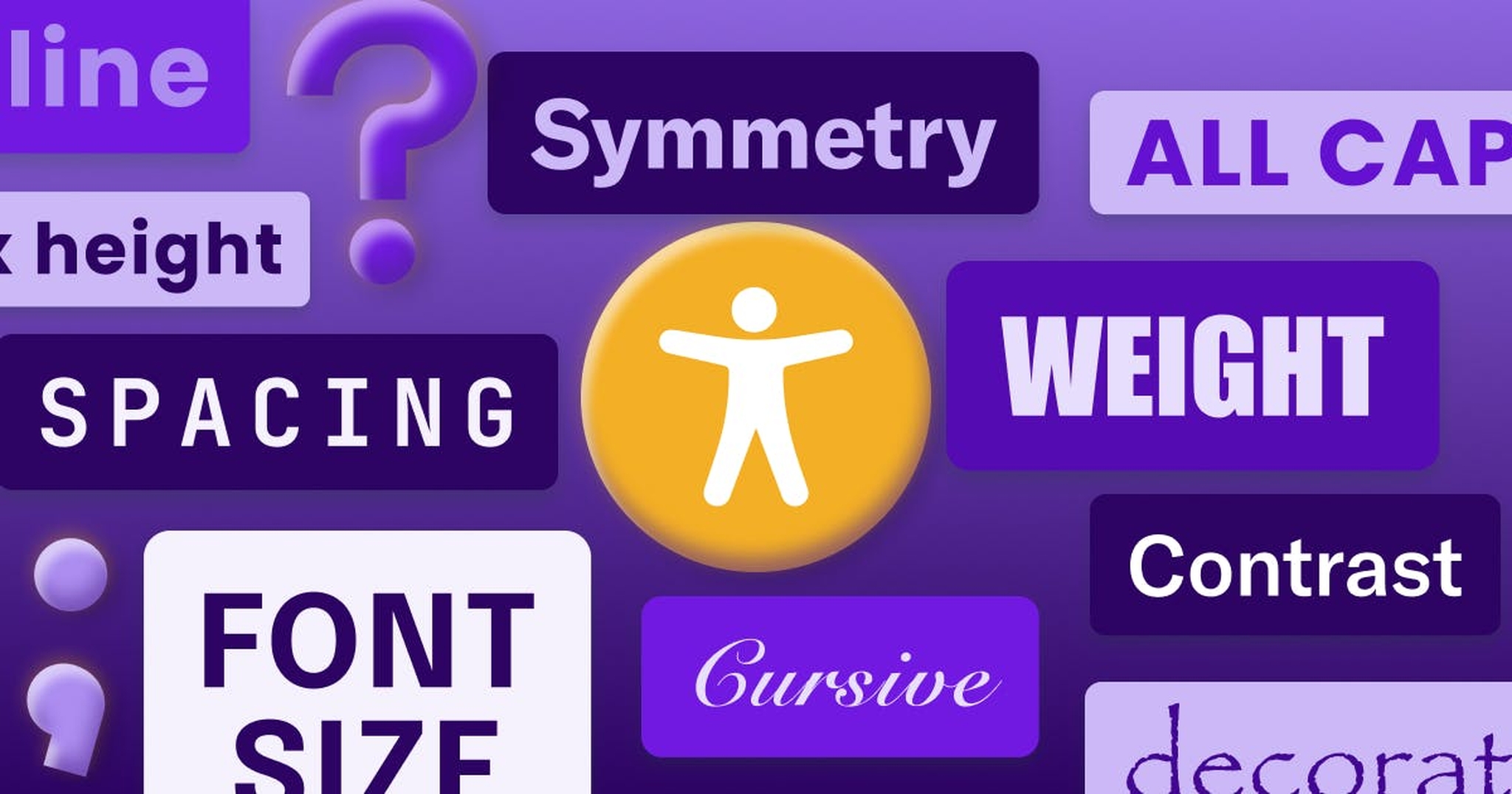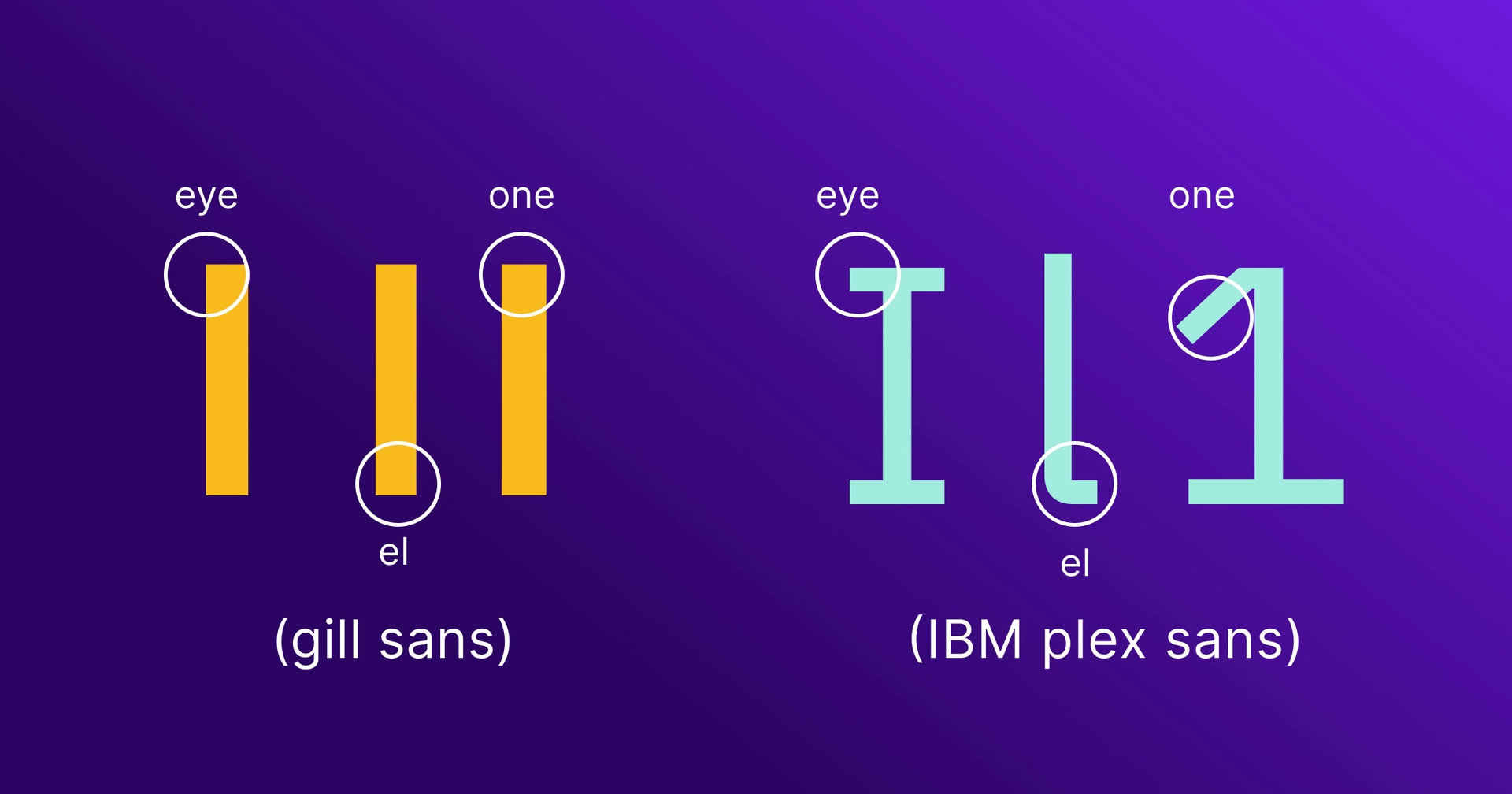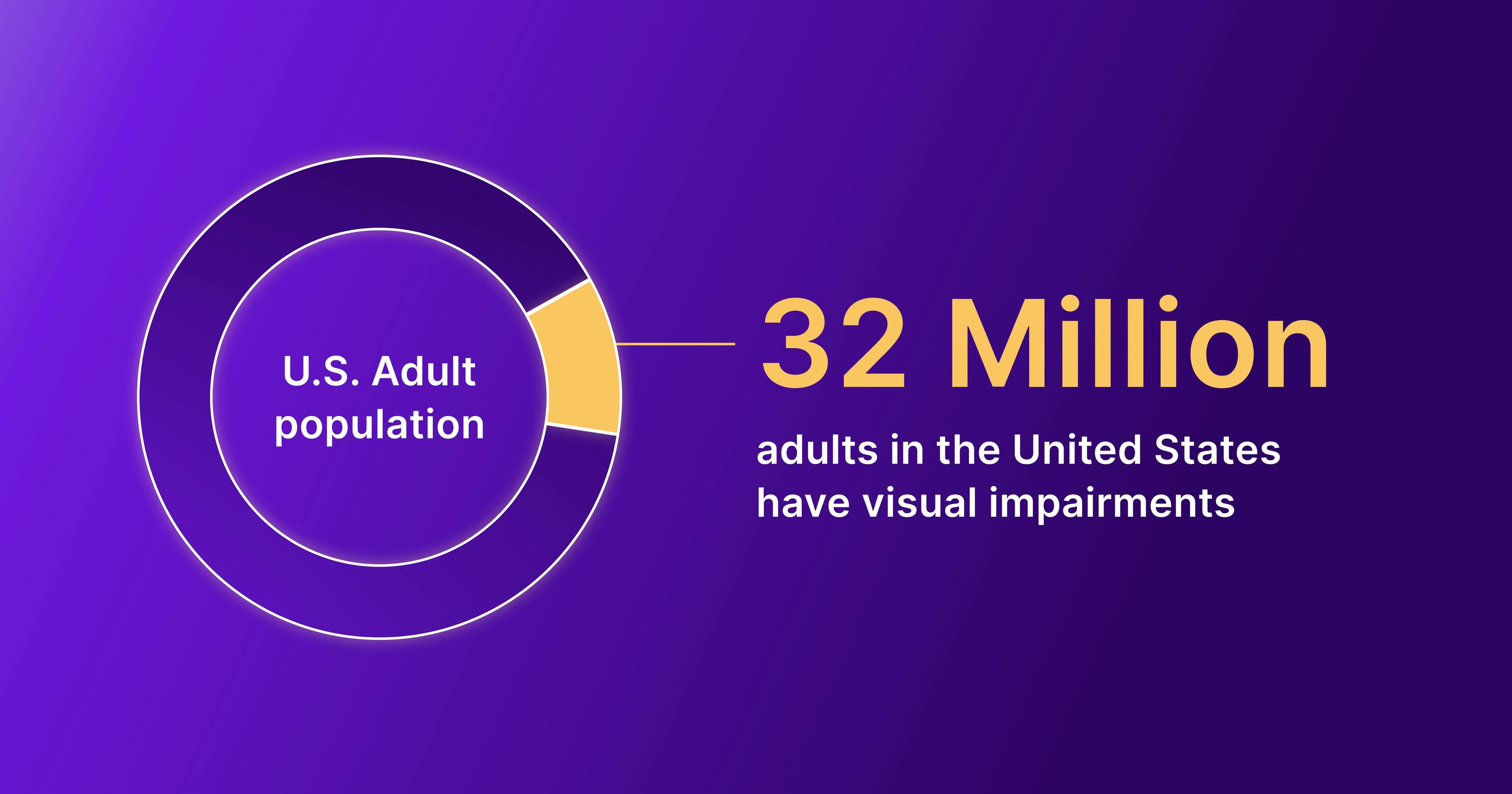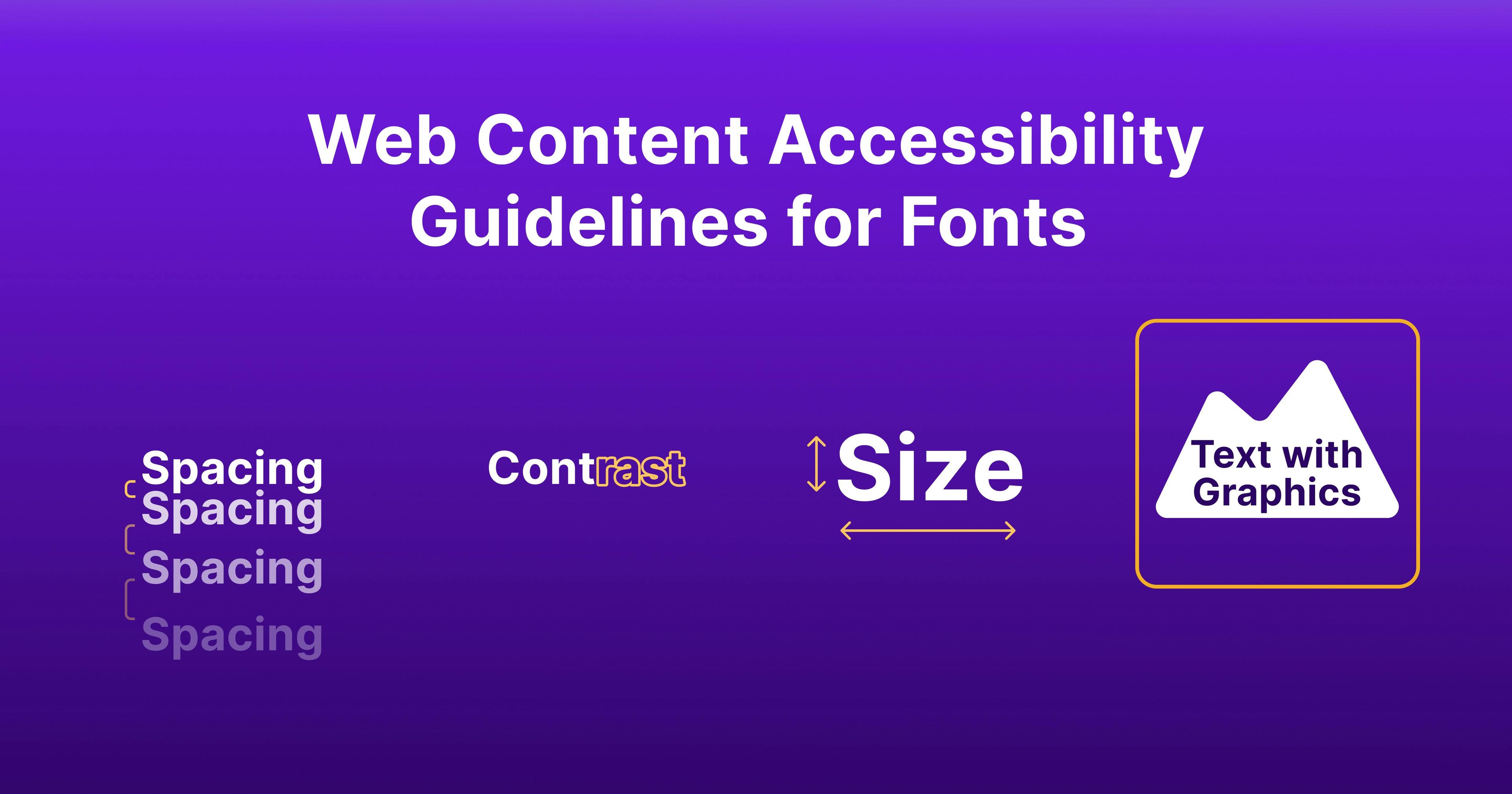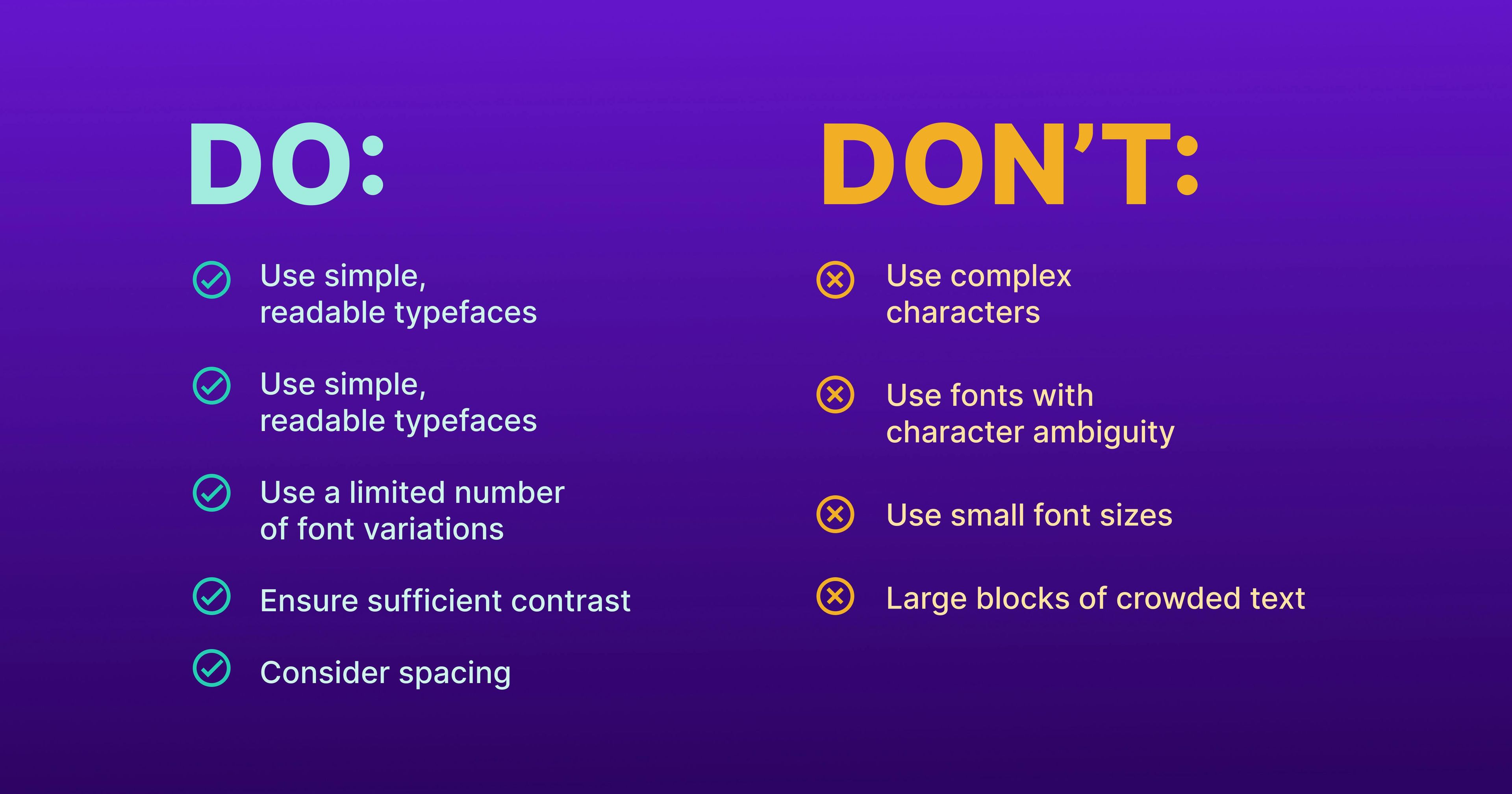
Using accessible fonts is critical to comply with accessibility rules and make your website readable for all users. Learn how to make your site more accessible..
Design, page layout, and navigation all play a part in creating an accessible web design. However, the smaller details — like font — are just as important. In fact, it’s these smaller details that can make your site a target for accessibility lawsuits.
To avoid lawsuits — and improve the functionality and legibility of your site — you need to choose a font that’s compliant with the Americans with Disabilities Act (ADA). This ensures the millions of people with visual impairments(opens in a new tab) and cognitive disabilities can easily read text.
Below, we’ll review how to choose fonts that meet the accessibility standards included in the ADA and which are the best fonts for readability.
What Makes a Font Accessible?
There isn’t a one-size-fits-all formula for accessible fonts, but specific elements like size and color play a role. Additionally, the Web Content Accessibility Guidelines (WCAG)(opens in a new tab) include recommendations on what makes a font accessible for individuals with visual or cognitive disabilities.
For example, a study by the Association for Computing Machinery(opens in a new tab) found that typography has a direct impact on reading speed and comprehension. It was discovered that EB Garamond had a faster reading speed among older participants than Avant Garde and Open Sans which slowed reading speed. Additionally, the study found the fonts Noto Sans, Times New Roman, and Calibri were easier for participants to comprehend.
The fonts mentioned above are considered to be more accessible and meet ADA compliance standards. Some additional elements that add to font accessibility include:
Size: While there are no minimum size requirements for font size, it’s recommended font sizes start at 1 rem (15 pixels).
Color: Avoid using color alone to portray information; for example, avoid using color to encourage users to take a specific action or to convey meaning.
Spacing: Fonts should have equal word spacing for easy distinction.
Weight: A thinner weight on smaller font size and narrow-width fonts are not deemed accessible.
Contrast: When using different font colors, ensure they have the right color contrast between text elements. A minimum ratio of 4.5:1 is considered accessible for body text.
Lowercase usage: Users should be able to easily distinguish between uppercase and lowercase letters.
What Makes a Font Inaccessible?
As we mentioned above, there is no one-size-fits-all for accessible fonts. However, just as there are certain elements that make a font more accessible, there are elements that make fonts inaccessible. These include:
Decorative fonts, like those resembling shapes
Cursive fonts that don’t separate characters
Fonts that make it difficult to understand content
Fonts that slow reading speed or comprehension
Cursive or highly decorative fonts are not only inaccessible in terms of readability and legibility, but also slow down navigation and comprehension.
Why Choose an Accessible Font?
Approximately 32 million adults(opens in a new tab) in the United States have visual impairments, including low vision, color blindness, and cataracts. This number does not include those with visual processing difficulties or other learning disabilities (which affect more than 65.6 million Americans(opens in a new tab)), such as dyslexia or ADHD. If your website isn’t accessible, it’s likely many users won’t be able to understand your content or access the resources and products you offer.
There can also be search engine optimization (SEO) benefits to complying with font accessibility guidelines. For example, easier navigation and more readable text can improve key website metrics like bounce rate (the number of users who leave your website without visiting another page) and time on site — both of which are known to boost search engine rankings. Using accessible fonts also ensure that your content is easier to read and is compatible with assistive technology.
In addition to providing a good user experience, accessible fonts help you comply with ADA guidelines. For example, WCAG recommends body text having a text size of at least 12 points (pt) or 15 pixels (px). They also recommend text not be smaller than 9pt (12 px). The guidelines also recommend including a variety of fonts that are widely available and accessible, including Times New Roman, Verdana, Arial, Helvetica, and others.
By following accessible font guidelines, you increase ADA compliance on your site. This helps to decrease the chance of accessibility lawsuits being filed against your company, which can be expensive and damaging to your reputation. Not to mention the subsequent loss of customers and trustworthiness.